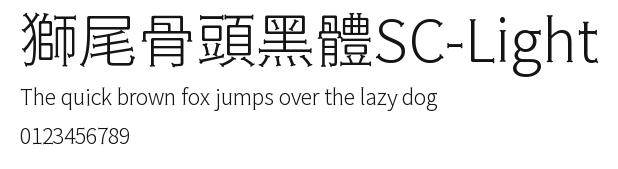
• Font Name: 獅尾骨頭黑體SC-Light
• Font Style: Light
• Font ID: FontForge 2.0 : Swei Bone Sans CJK SC Light : 20-4-2020
• Full Font Name: 獅尾骨頭黑體SC-Light
• Version: Version 2.130
• PostScript Name: SweiBoneSansCJKsc-Light
• Character Count: 44508
About 獅尾骨頭黑體SC-Light.ttf
獅尾骨頭黑體SC-Light.ttf is a modern, elegant sans-serif font designed for ultimate readability and visual harmony. Perfect for branding, headlines, web design, and print materials.